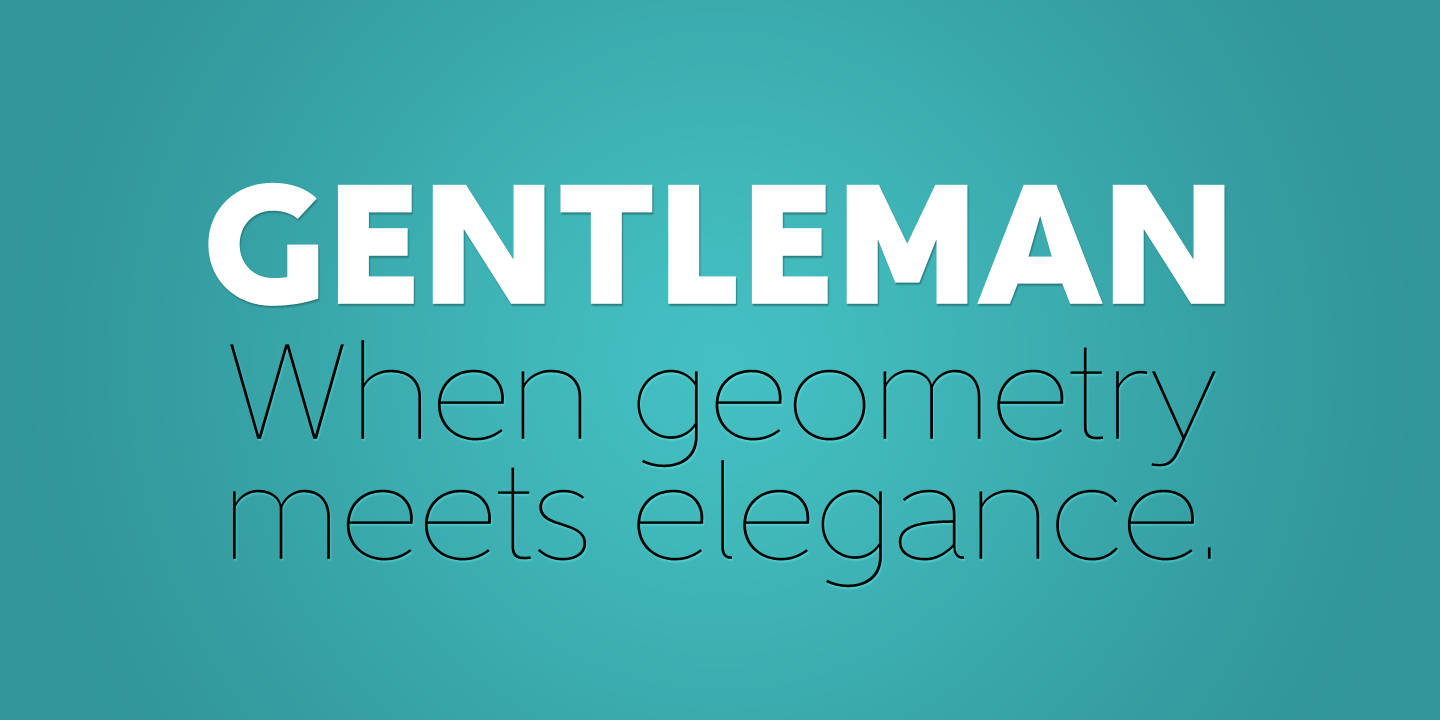
Gentleman Font is perfect for distinguished men's fashion branding, luxury grooming products, classic barbershop signage, sophisticated menswear labels, upscale men's clubs, premium whiskey packaging, elegant watch advertisements, and refined masculine lifestyle marketing. This distinguished typeface excels in applications requiring refined masculinity and classic sophistication that captures the essence of traditional gentlemanly elegance and timeless masculine style.
What makes Gentleman Font exciting is its embodiment of classic masculine refinement that perfectly captures the essence of distinguished gentlemanly character through elegantly structured letterforms. The font features sophisticated character construction with refined proportions and distinguished styling that instantly conveys themes of class, sophistication, and masculine elegance perfect for brands targeting discerning gentlemen and classic masculine lifestyle markets.
The Gentleman Font family includes refined weights and classic variations with sophisticated styling elements, offering designers comprehensive tools for creating distinguished masculine compositions. The family provides consistent gentlemanly aesthetic with varying refinement levels for versatile luxury communications and masculine branding projects requiring genuine distinguished character and classic masculine appeal.
Gentleman Font Free Download offers designers access to premium masculine typography that perfectly embodies the spirit of classic gentlemanly sophistication and refined masculine elegance. Whether you're creating men's luxury brand materials, grooming product packaging, masculine lifestyle campaigns, or distinguished business communications, this font provides the refined character needed for establishing sophisticated masculine positioning and classic gentlemanly brand presence.
The elegantly crafted letterforms of Gentleman Font ensure excellent readability while maximizing sophisticated charm and masculine elegance, making it ideal for luxury men's products, upscale masculine marketing, and distinguished business communications. This refined typeface combines classic masculine heritage with contemporary technical standards for outstanding performance in modern design environments requiring authentic gentlemanly character and sophisticated masculine presence.